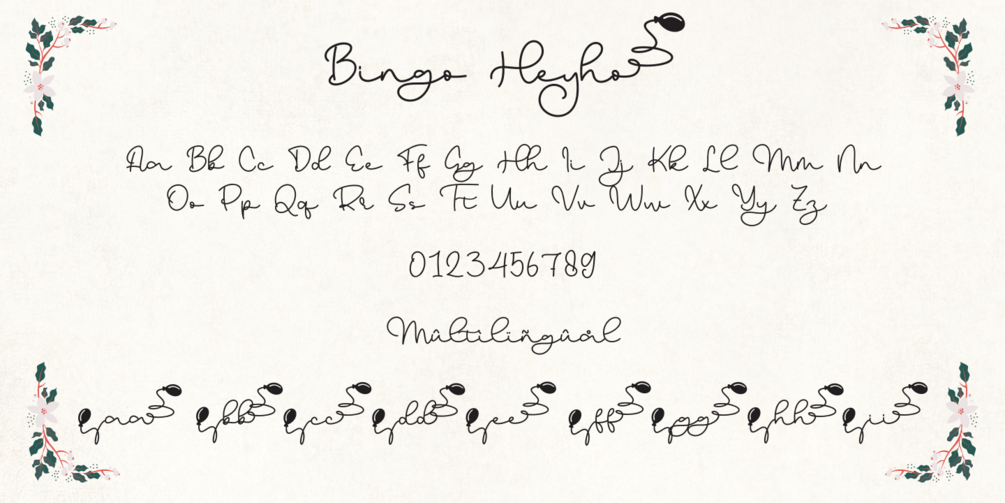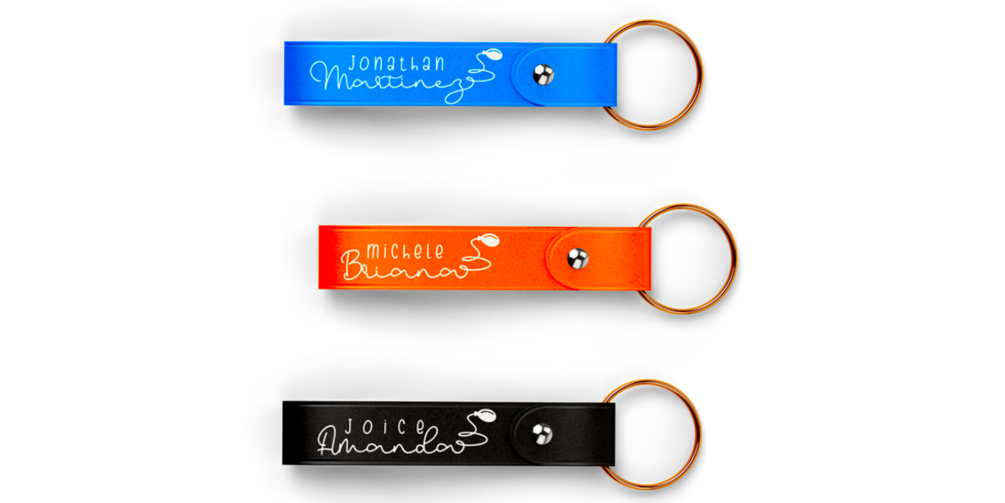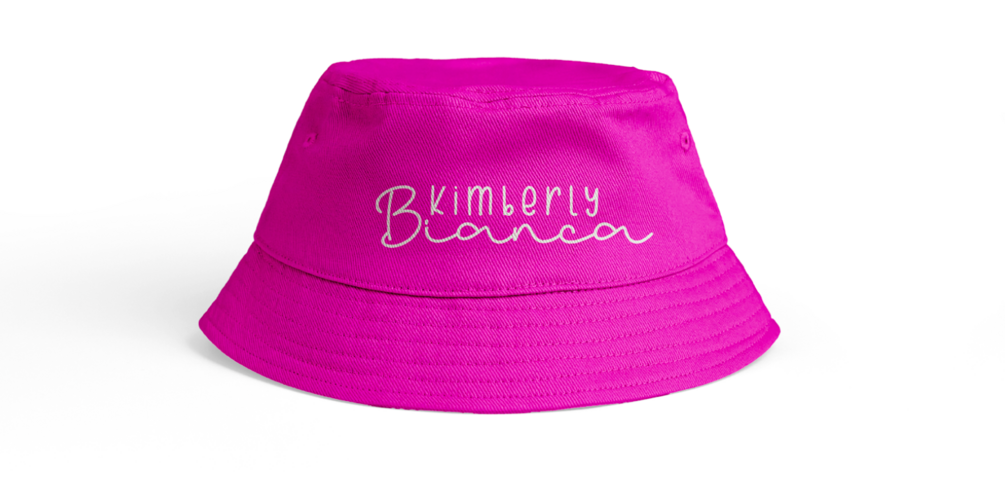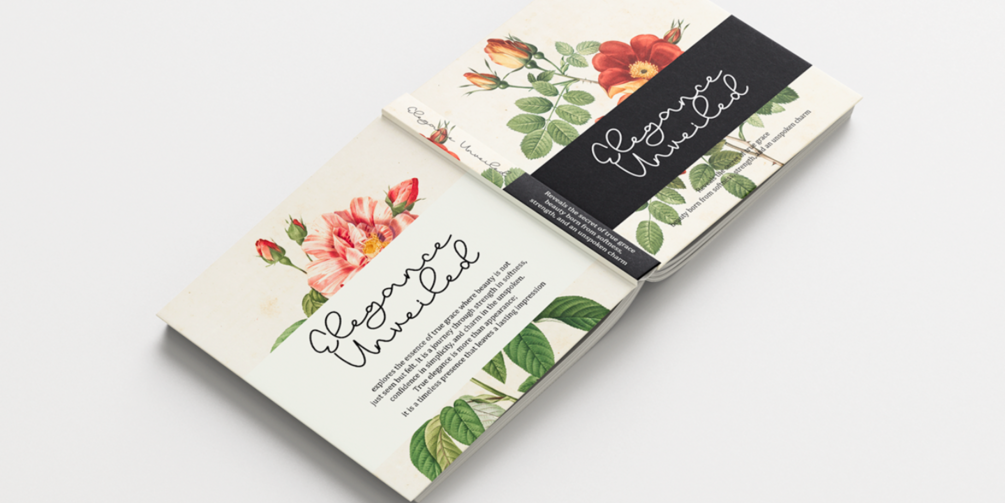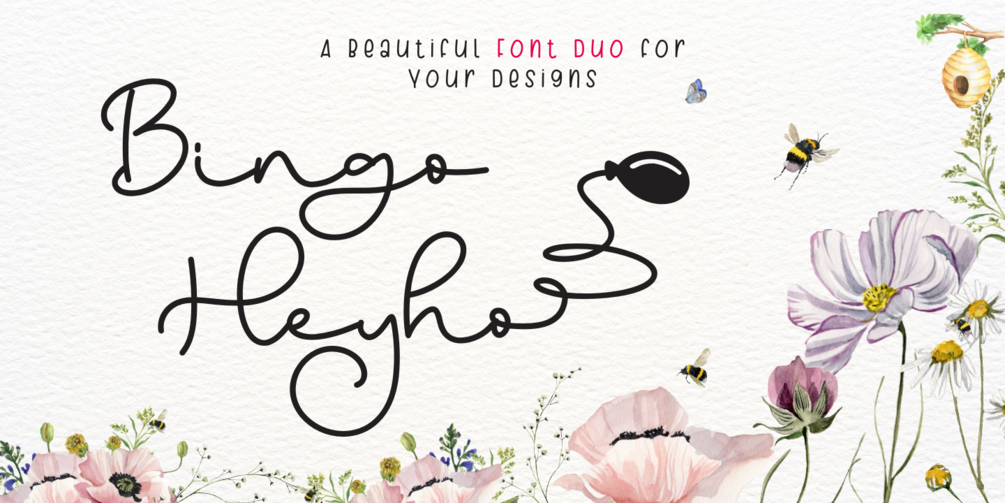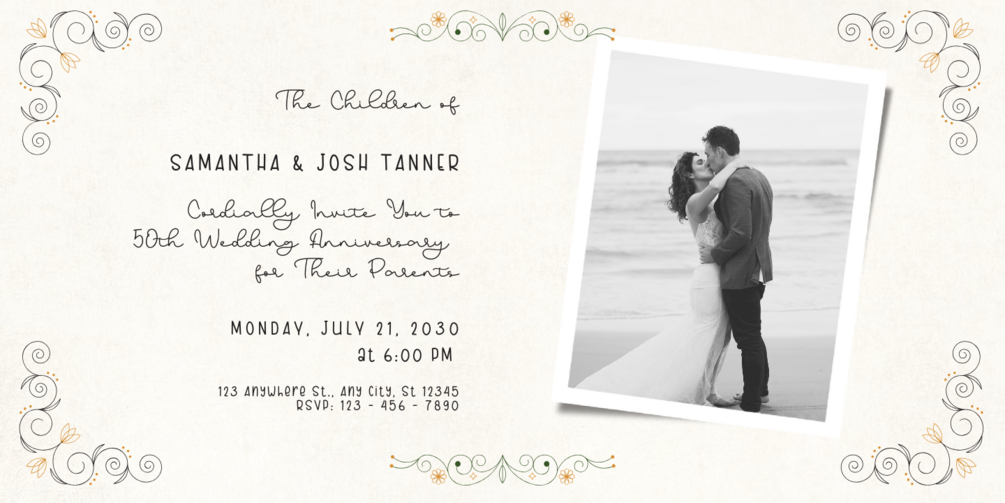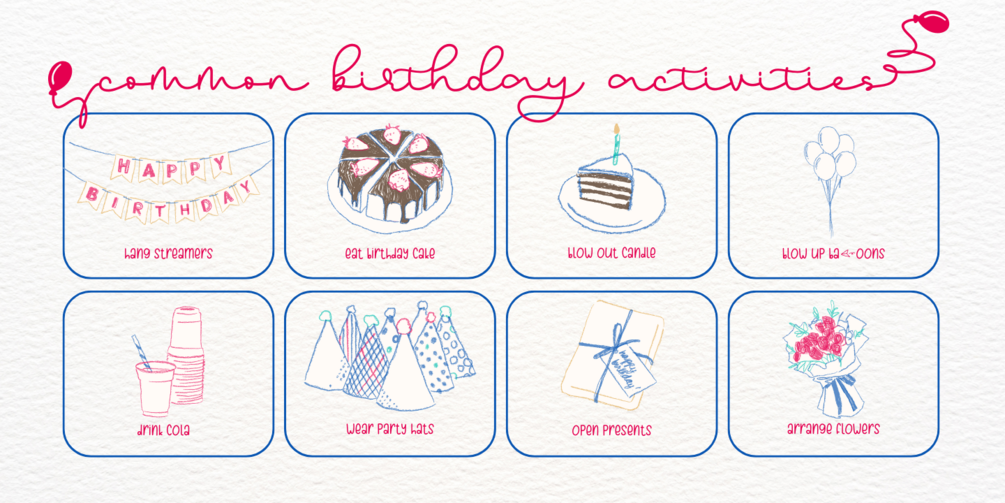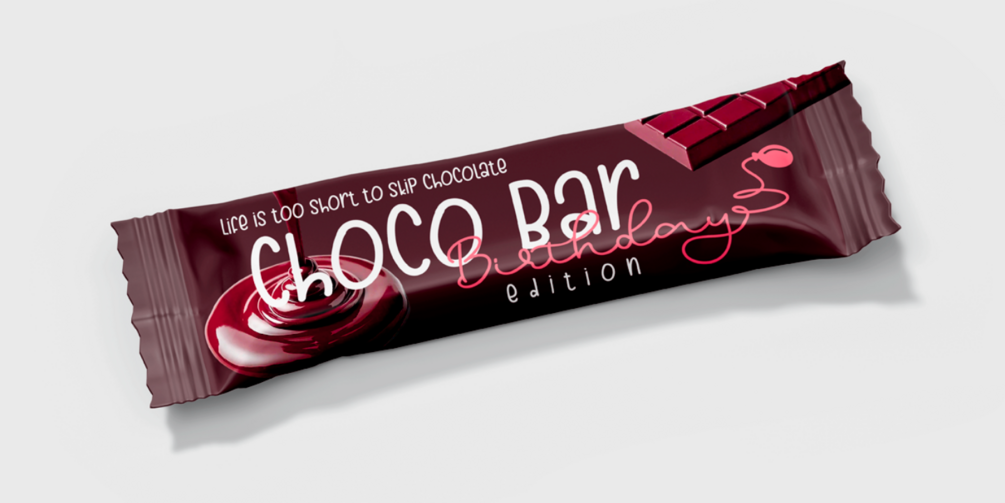
Bingo Heyho
Introducing Bingo Heyho Script – a lively monoline script font that adds a whimsical touch to your designs!
Bingo Heyho Script is a fun and playful font featuring charming balloon illustrations and numerous alternate characters that infuse your projects with personality and joy. Its lively strokes and lighthearted spirit make it ideal for creating designs that stand out and spread happiness.
Whether you're working on branding, invitations, social media posts, or any other creative project, this font will give your designs an engaging and cheerful feel. Perfect for everything from party invitations to playful packaging, Bingo Heyho Script brings a unique charm to your typography.
✨ Fun monoline script with delightful balloon-inspired alternates
✨ Perfect for invitations, branding, social media, and more
✨ Lively and whimsical design that adds personality and charm
✨ Easy to use and adaptable for any creative project
In addition, Bingo Heyho Regular offers a unique upright handwritten font that delivers a natural yet distinctive look.
This versatile font is perfect for projects where you need to add a personal, handcrafted touch. With its upright, casual style, Bingo Heyho Regular brings warmth and character to any design.
✨ Unique upright handwritten font with a natural, friendly vibe
✨ Ideal for adding a personal touch to logos, posters, and more
✨ Strong personality that still remains highly legible
✨ Perfect for a variety of creative projects
🎉 Let Bingo Heyho bring fun, whimsy, and character to your next design project!
✔ Multilingual Support
✔ Easy access to alternates and balloon illustrations